Best Free Arabic Calligraphy Fonts to Download
What is Arabic Calligraphy?
Arabic calligraphy is a type of calligraphy used to write the Arabic alphabet. The word “Arabic” refers to the writing style used in countries where Arabic is the official language, such as Iraq, Saudi Arabia, and Syria. There are three main styles of Arabic calligraphy: Kufic, Naskh, and Thuluth. Kufic is the oldest and most basic form of Arabic calligraphy. It was used extensively in early Islamic manuscripts and is still used today in religious texts.
Different styles of Arabic Calligraphy
There are many different styles of Arabic calligraphy, each with its own distinct look and feel. The most common styles are the Thuluth, Naskh, and Diwani scripts. The Thuluth script is characterized by its large, ornate letters. It is often used for religious texts, as it is considered to be very beautiful and dignified. The Naskh script is a more utilitarian style of calligraphy, and is often used for official documents and correspondence. It is easy to read and very clear, making it ideal for formal purposes. The Diwani script is a very intricate style of calligraphy, often used for decorative purposes. It is very flowing and luxurious, and resembles poetry when written.
How to Choose the Right Font for Your Project ?
There are a wide variety of Arabic calligraphy fonts to choose from, and the right font for your project can make all the difference. Here are a few things to consider when choosing the perfect font for your project:
1. What is the purpose of the project? Is it for a formal occasion or a more casual setting?
2. What is the overall theme or feeling you want to convey with your project?
3. What is the target audience for the project?
4. What kind of materials will you be using? Paper, canvas, wood, fabric, etc.
5. How much time do you have to complete the project?
Once you’ve considered all of these factors, the type of Arabic calligraphy font that best fits your project is right around the corner.
Seribu Bulan – Arabic Type
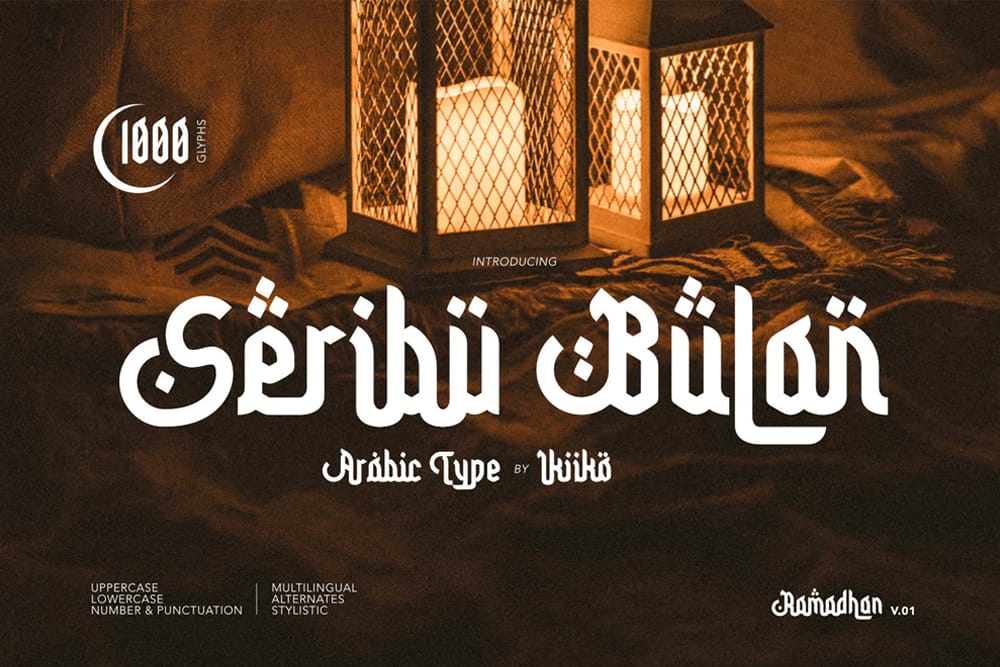
Basmala An Arabic Style Typeface (Premium)
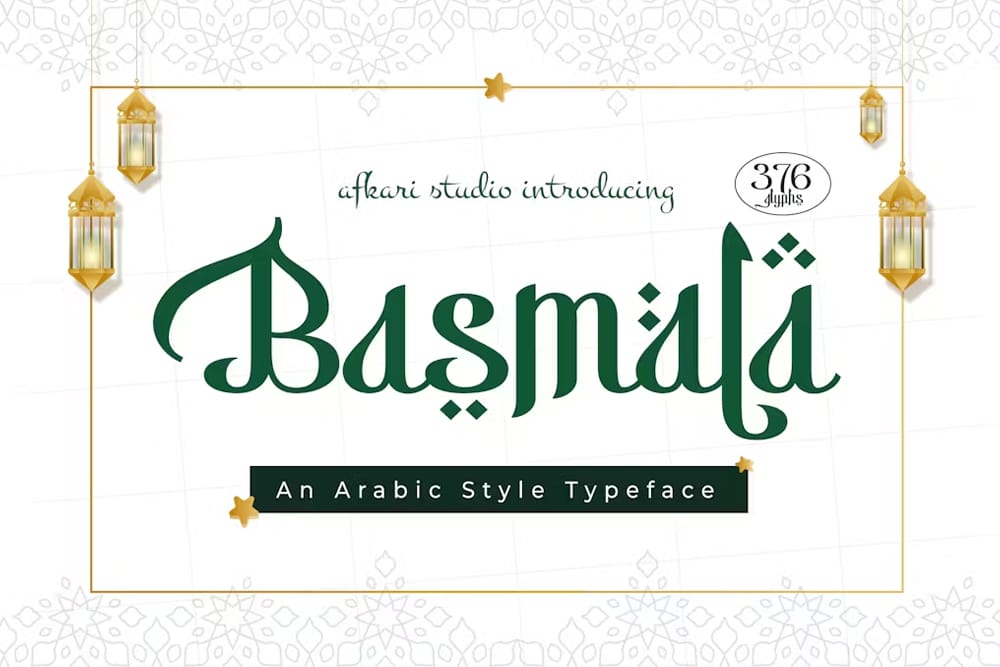
DG Trika Font
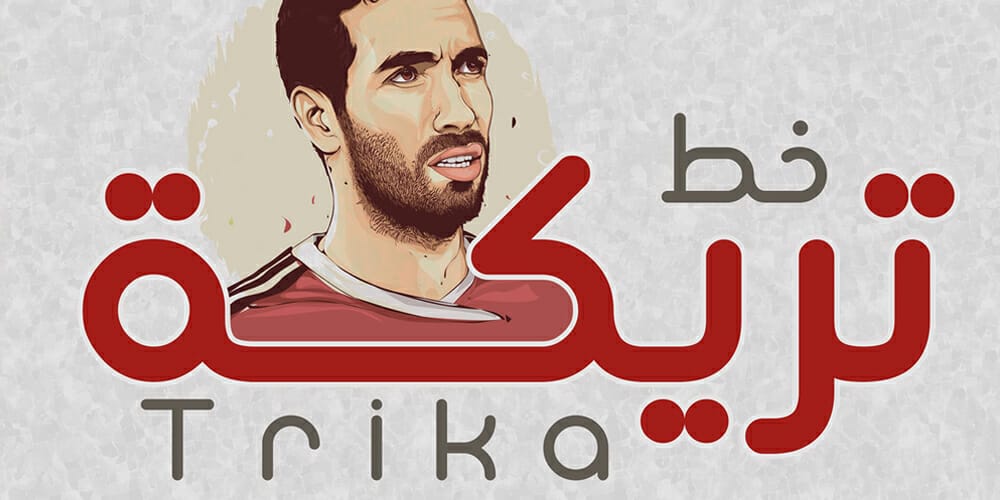
Nurokhim – Arabic Style Font
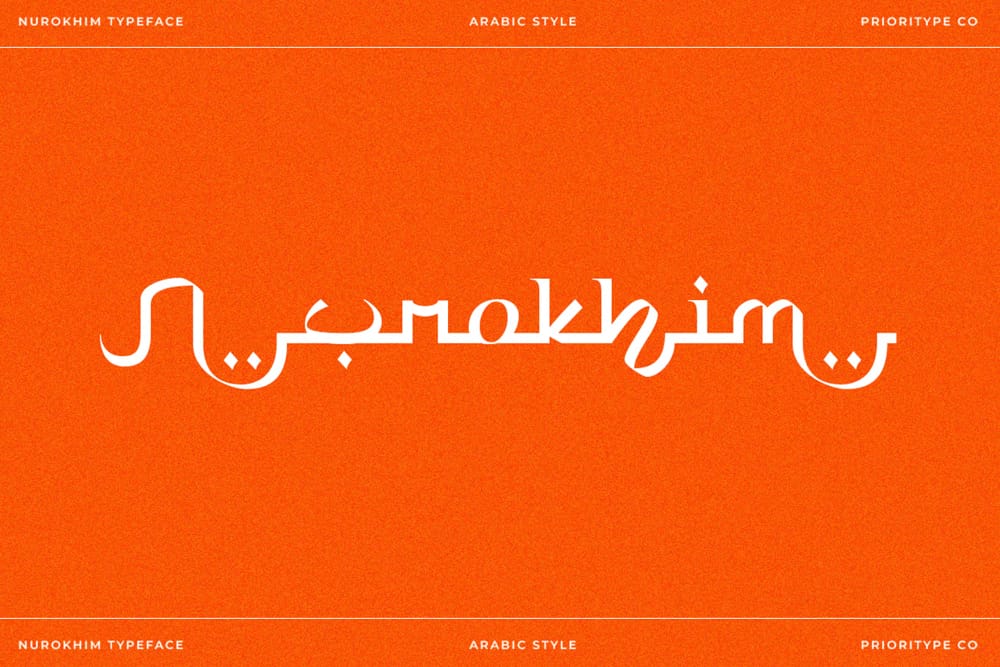
Aidilfitri Font
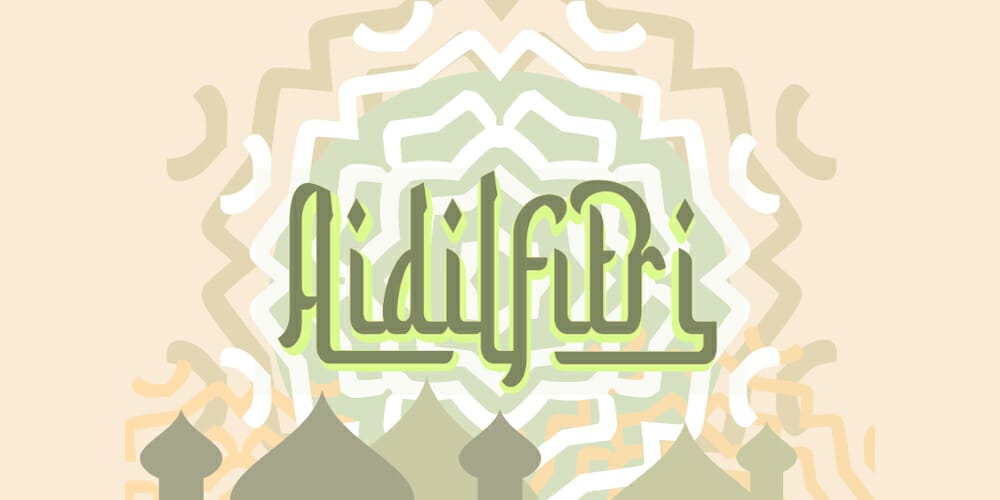
Sabana Arabic Font (Premium)
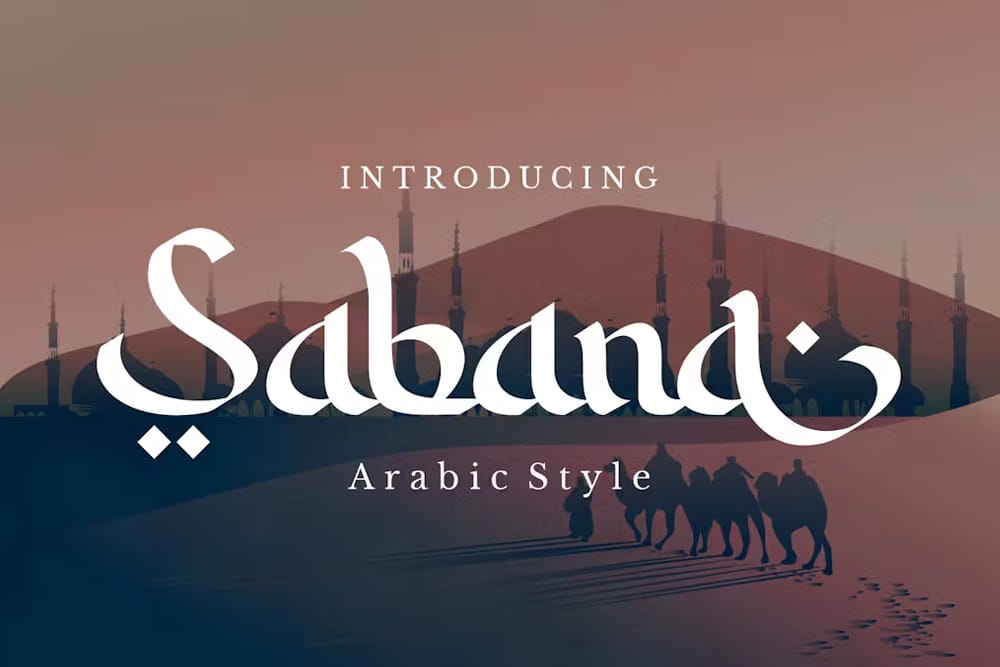
Igundils – Arabic Font
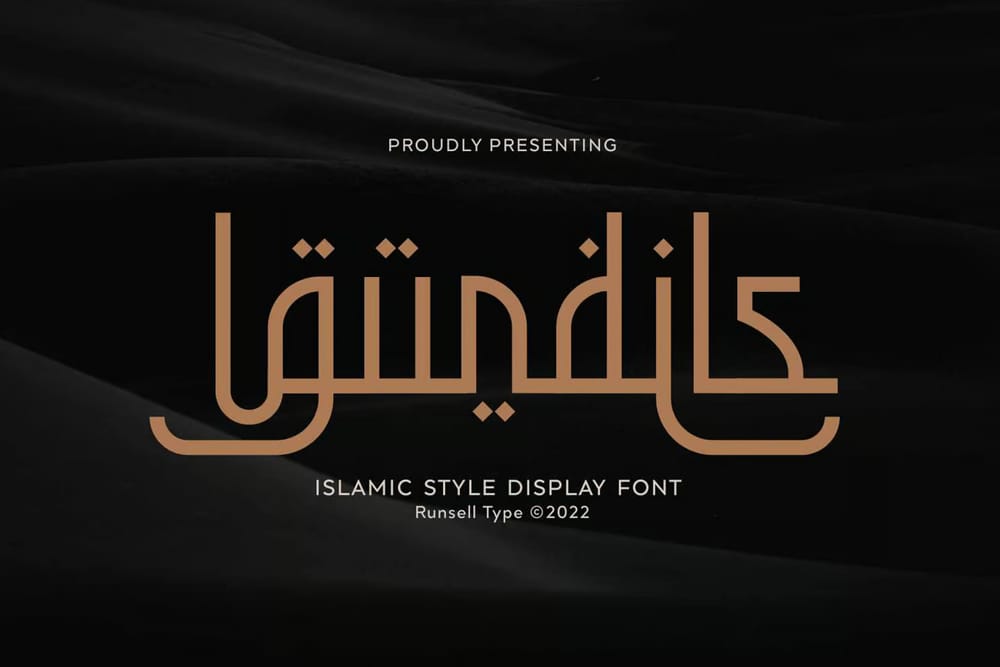
Ceria Lebaran Font
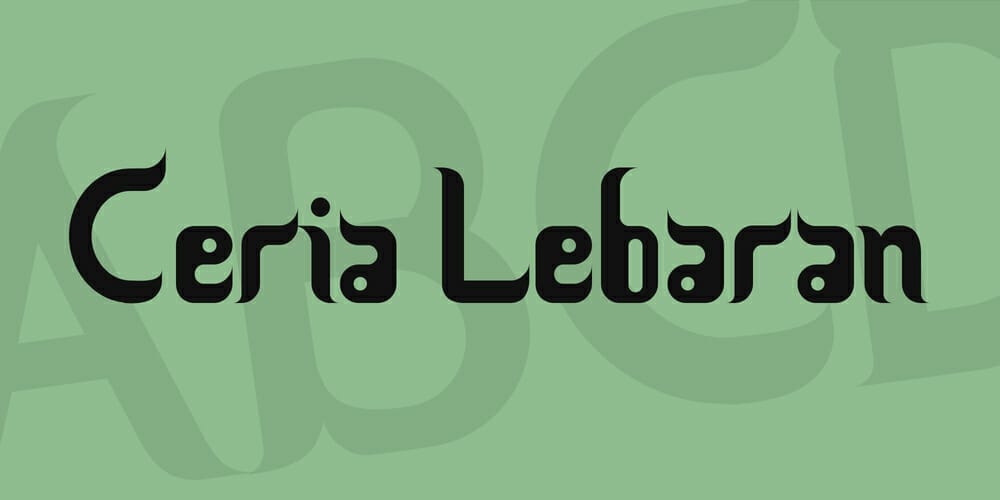
Syawal Khidmat Font
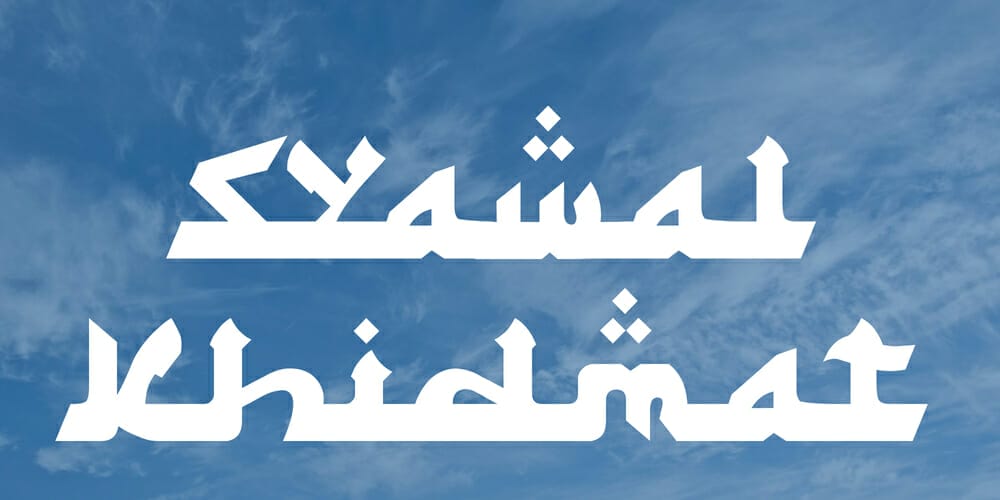
Alhambra
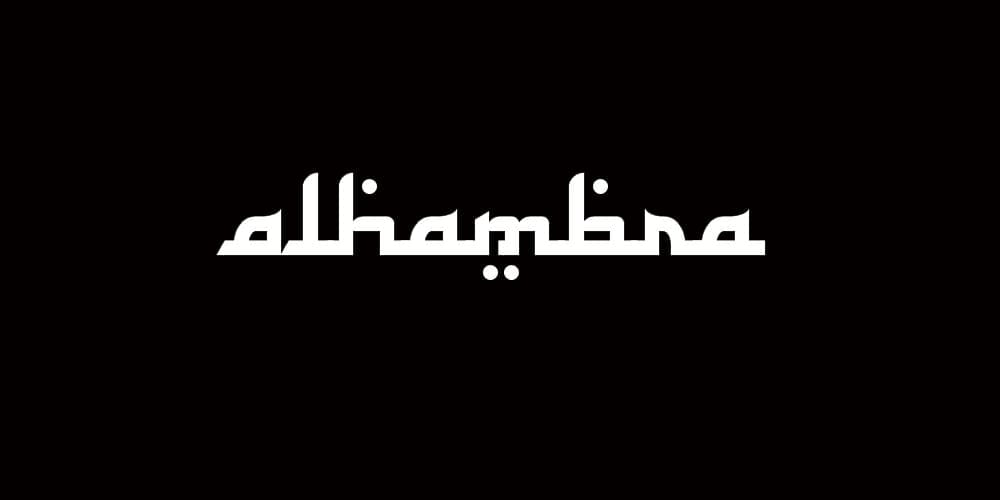
Lafadz Arabic Symbol Calligraphy Font
Salsabilah Arabic Font (Premium)
El Messiri Font
Dabir Font
Hamah Font
Aceh Darusalam Font
Hoba Font
Ketupat Ramadhan
Awal Ramadhan
Shareb Typeface
A Thuluth Font
DG Aqsa Font
DG Modal3at Font
Kaifama Typeface
Gali Modern Font
DG Tebian
Abd ElRady Typeface
Nurkholis Font
Moheeb Arabic Font
Kufyan Arabic Typeface
Ahlan Wasahlan Font
Abd ElRady Pro Typeface
DG Kufi Font
Flat Arabic Font
Arabian Night Font
Maghfira